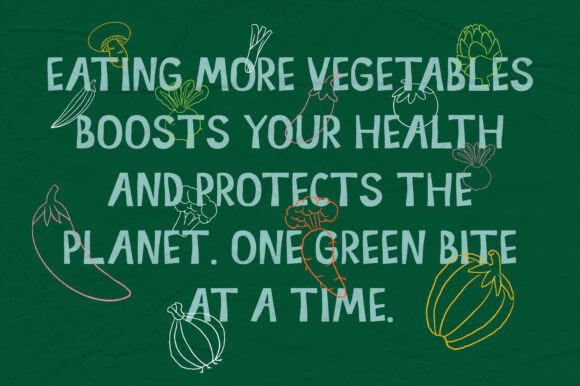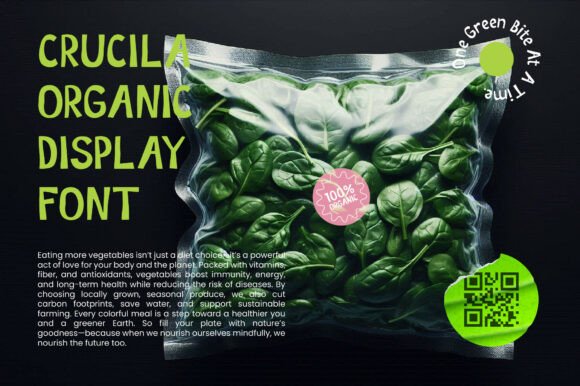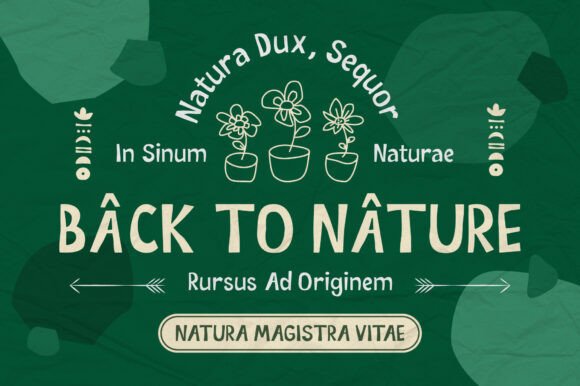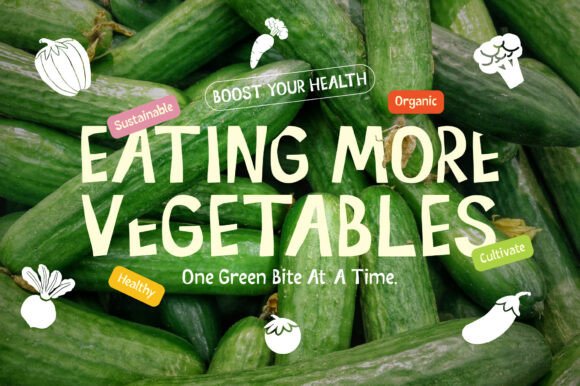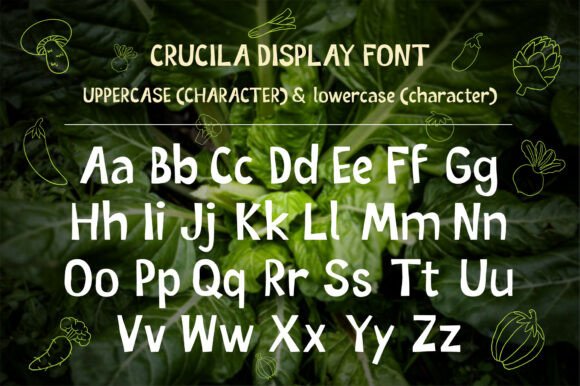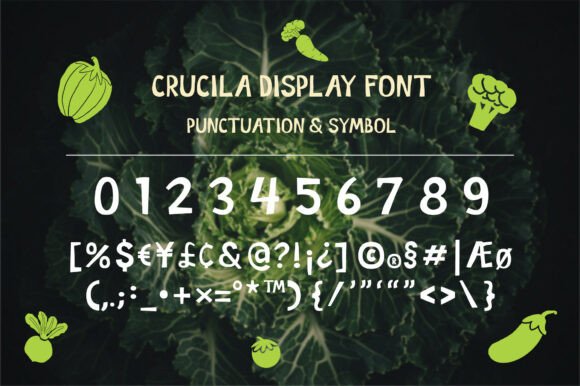
Crucila Regular Font: Bringing Nature’s Charm to Your Designs
In the world of typography, few fonts manage to capture the essence of nature’s beauty and organic charm as effectively as Crucila Regular Font. This vibrant, organic display font is a game-changer for designers and crafters looking to infuse their projects with a fresh, eco-friendly spirit. Inspired by natural shapes and earthy tones, Crucila is the perfect choice for those seeking a natural, approachable, and personality-rich aesthetic.
The Inspiration Behind Crucila
Crucila’s design is rooted in the natural world. The font’s creator drew inspiration from the organic shapes and earthy tones that surround us in nature. The result is a typeface that exudes warmth and authenticity, making it perfect for projects that celebrate the great outdoors. From eco-branding to gardening campaigns, Crucila’s hand-sketched, irregular curves give it a lively, human touch that resonates with audiences of all ages.
Key Features of Crucila Regular Font
- Organic and Hand-Sketched: Crucila’s irregular curves and hand-sketched feel give it a unique, human touch that sets it apart from more traditional fonts.
- Bold and Playful: This vibrant display font is perfect for making a statement and adding a touch of personality to your designs.
- Abstract Charm: Crucila’s organic shapes and earthy tones infuse it with an abstract charm that’s both captivating and memorable.
- Eco-Friendly Spirit: With its natural, earthy feel, Crucila is the perfect choice for eco-branding, organic product labels, and other environmentally conscious projects.
Perfect for Nature-Inspired Projects
Crucila shines in any creative work that celebrates nature. Here are some project ideas where Crucila Regular Font truly comes alive:
- Eco-Branding: Use Crucila to create a brand identity that reflects your commitment to the environment.
- Food and Beverage Packaging: Add a touch of natural charm to your product labels and packaging with Crucila.
- Gardening Campaigns: Create eye-catching promotional materials for your gardening business or project with Crucila’s fresh, organic feel.
- Organic Product Labels: Use Crucila to create labels that reflect the natural, eco-friendly spirit of your products.
- Posters and Social Media Visuals: Add a touch of personality and whimsy to your posters and social media graphics with Crucila.
- Children’s Illustrations: Crucila’s playful, hand-sketched feel makes it perfect for children’s book illustrations and other kid-friendly projects.
Bonus Feature: Hand-Drawn Vegetable Outline Illustrations
To help you create cohesive, nature-inspired designs, Crucila comes with a special bonus feature: hand-drawn vegetable outline illustrations. These charming illustrations are perfect for pairing with the font to add an extra flourish of greenery and freshness to your designs.
Crucila Regular Font is a game-changer for designers and crafters looking to bring a touch of nature’s charm to their projects. With its organic, hand-sketched feel and eco-friendly spirit, Crucila is the perfect choice for any creative work that celebrates the great outdoors. Whether you’re working on eco-branding, food and beverage packaging, or children’s illustrations, Crucila is sure to bring your designs to life with warmth and authenticity. So why wait? Add a flourish of greenery and freshness to your design world with Crucila – one organic letter at a time.